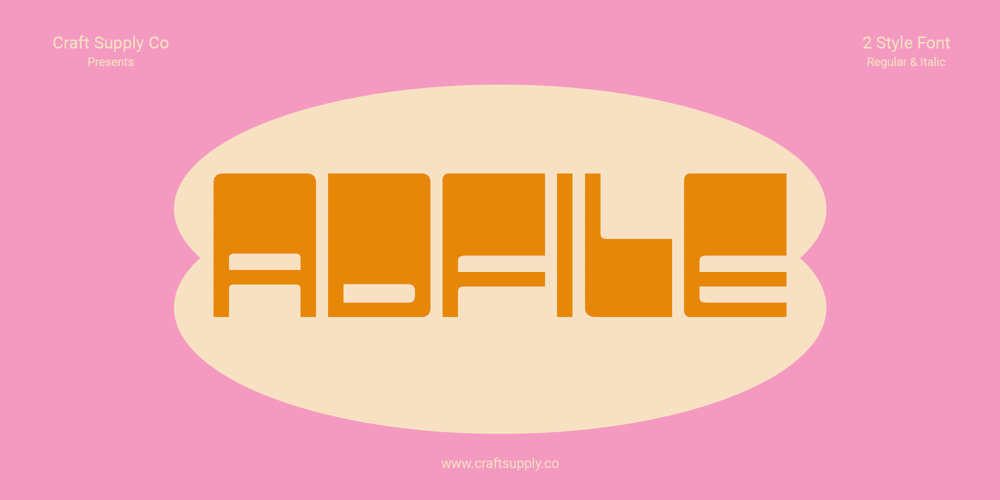
Adfile Font Family was designed by Trio Nazzar Saputra, Wahyu Hadi Yuana and published by Craft Supply Co. Adfile contains 8 styles and family package options. Adfile Font: Elevate Display with Funky Square Sans SerifFun Vibes UnleashedAdfile, a font that redefines fun, infuses every character with a playful spirit, making it the go-to choice for vibrant display designs.Squared EleganceBreaking away from the ordinary, Adfile’s square design adds a touch of modernity, creating a dynamic visual impact that’s impossible to ignore.Versatile Display MarvelFrom posters to digital media, Adfile’s versatility shines, ensuring your design communicates energy and excitement across various platforms.Ignite Creativity with AdfileThis font is not just a typeface; it’s a catalyst for creativity. Let Adfile be the spark that transforms your displays into visual masterpieces.ConclusionAdfile’s funky charm and squared elegance make it the ultimate choice for those who seek a font that goes beyond letters, turning each design into a celebration of creativity and joy.